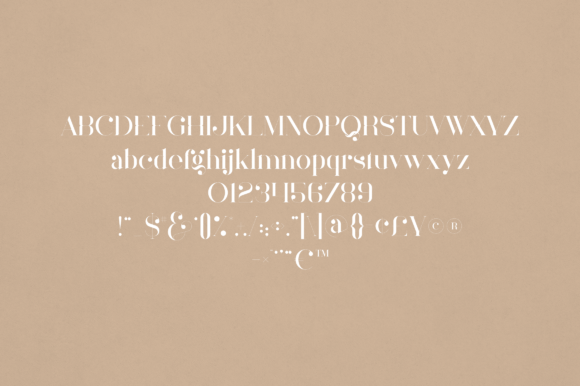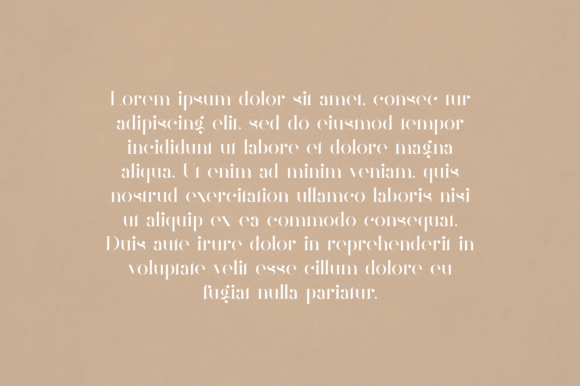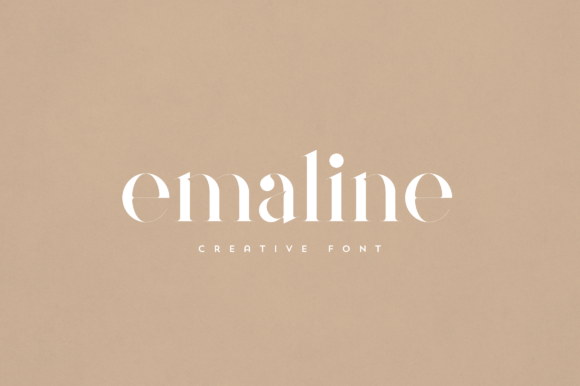
Introducing Emaline Font: Elevate Your Typography with Elegance and Versatility
In the world of typography, a font can make or break the visual appeal of a design. If you’re a designer, craftsperson, or simply someone who appreciates beautiful typography, you’re in luck. Emaline Font is an elegant and versatile serif font that can instantly elevate your designs and make your typography truly unique. Whether you’re working on a logo, branding project, headline, or plain text, Emaline Font is the perfect choice.
What Makes Emaline Font Special?
Emaline Font stands out from the crowd with its distinctive serif design. The font’s elegant lines and curves bring a touch of sophistication to any design, making it perfect for projects that require a high level of refinement. At the same time, Emaline Font is incredibly versatile, allowing you to use it in a wide range of applications, from branding and packaging to magazine headers and text overlays.
As a designer or craftsperson, you’re always on the lookout for fonts that can help you create stunning visuals. Emaline Font is a game-changer in this regard. Its unique design makes it perfect for:
- Branding projects: Create a lasting impression with Emaline Font’s elegant and sophisticated design.
- Home-ware designs: Add a touch of refinement to your home-ware designs, from product packaging to labels and tags.
- Product packaging: Stand out on store shelves with Emaline Font’s distinctive serif design.
- Magazine headers: Create eye-catching headlines and titles with Emaline Font’s elegant lines and curves.
- Text overlays: Add a stylish text overlay to any background image with Emaline Font’s versatile design.
Why Choose Emaline Font?
With so many fonts available, why choose Emaline Font? Here are just a few reasons:
- Unique design: Emaline Font’s distinctive serif design sets it apart from other fonts.
- Versatility: Use Emaline Font in a wide range of applications, from branding and packaging to magazine headers and text overlays.
- Elegance: Add a touch of sophistication to your designs with Emaline Font’s elegant lines and curves.
Tips for Using Emaline Font
To get the most out of Emaline Font, here are a few tips:
- Experiment with different sizes: Emaline Font looks great in a variety of sizes, from large headlines to smaller body text.
- Play with colors: Try out different colors and color combinations to see what works best with Emaline Font.
- Mix and match: Combine Emaline Font with other fonts to create a unique and eye-catching design.